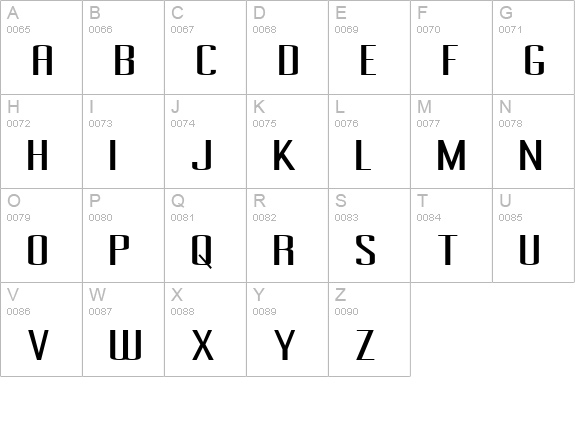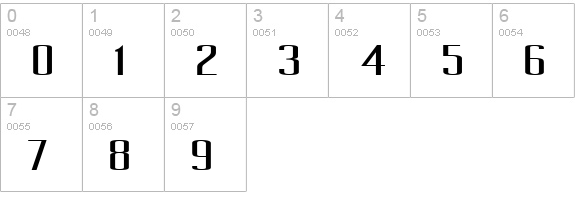
Pecot Upper font is a stunning typeface that captures the essence of elegance and sophistication. With its sleek and clean lines, this font is perfect for adding a touch of refinement to any design project. The uppercase letters are bold and eye-catching, making them ideal for headlines, logos, and branding materials. But what sets Pecot Upper font apart is that it is not only visually appealing but also free. Yes, you read that right! This incredible font is freely available to download at FontsMarket.com. Now you can elevate your designs without having to worry about breaking the bank. Whether you're a professional graphic designer or a creative enthusiast, Pecot Upper font is a must-have in your font collection. Its versatility allows it to be used in a wide range of design projects, from posters and brochures to websites and social media graphics. The attention to detail in Pecot Upper font is evident in its perfectly balanced letterforms and consistent spacing. Each character is crafted with precision, ensuring that your text will look impeccable in any size or format. With Pecot Upper font, you can add a touch of sophistication and professionalism to your designs effortlessly. So why wait? Head over to FontsMarket.com and download this amazing font for free today. Your design projects will thank you!